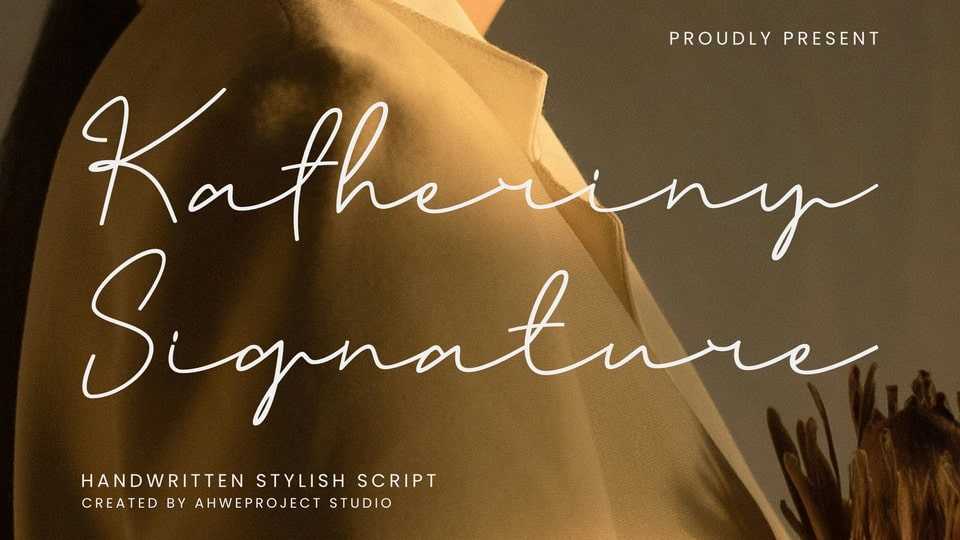
Katheriny Signature Font › Fontesk
Download Katheriny Signature font, a script typeface with a fashionable and sophisticated handwriting style. This font has unique curves so it looks elegant, natural, stylish and perfect.